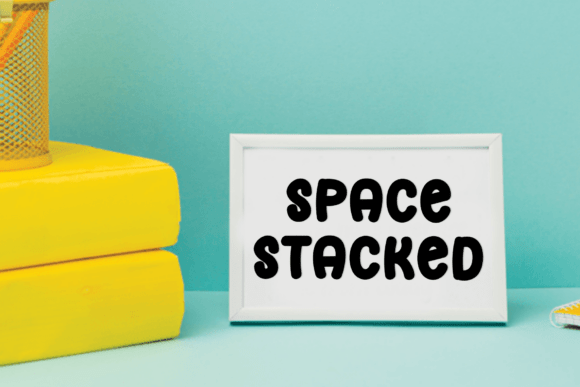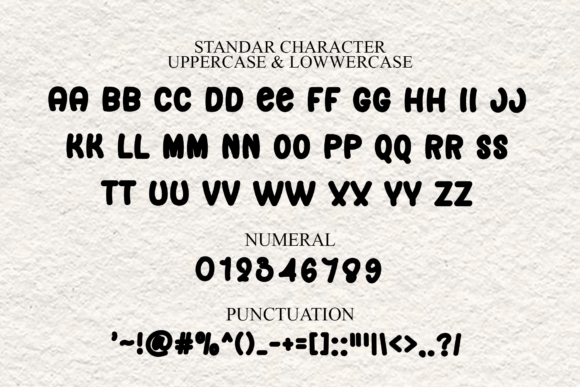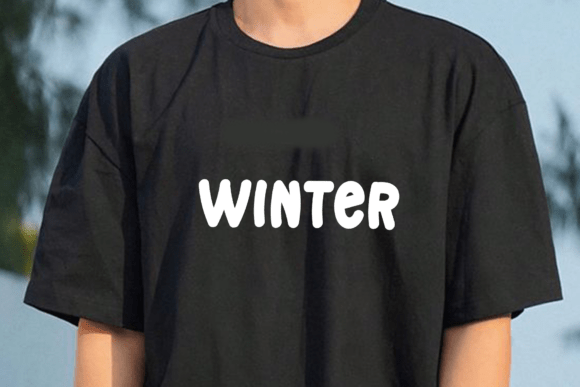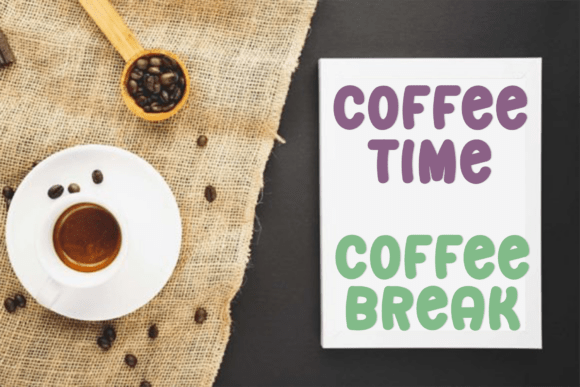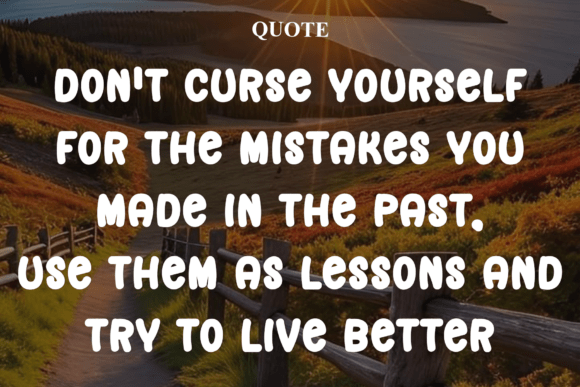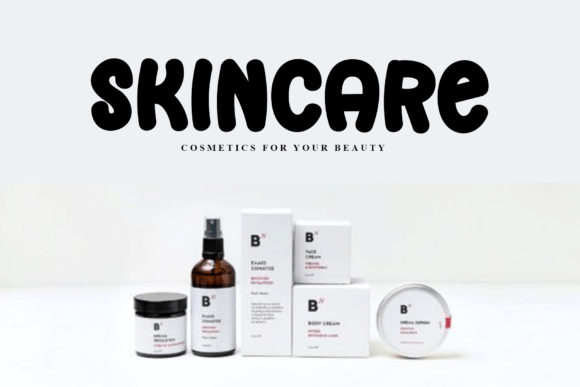
Introducing Classic Lemonade Font: The Ultimate Display Font for Refreshing Designs
Are you looking for a font that can add a refreshing and playful touch to your designs? Look no further than the Classic Lemonade Font. This bold, high-impact display font is designed with a modern spirit that is sure to make your designs stand out. With its massive, rounded letterforms and ultra-bold visual weight, Classic Lemonade is the perfect choice for designers and crafters who want to create eye-catching and impactful designs.
What Makes Classic Lemonade Font So Special?
Classic Lemonade Font features massive, rounded letterforms with an ultra-bold visual weight and a soft “puffy” silhouette. This unique combination of characteristics makes it a standout choice for a variety of design applications, including beverage packaging, seasonal marketing campaigns, cheerful event signage, and impactful social media headers. The font’s bold and playful design is sure to grab attention and leave a lasting impression on your audience.
Key Features of Classic Lemonade Font
- Bold and Playful Design: Classic Lemonade Font features a bold and playful design that is sure to add a refreshing touch to your designs.
- Massive, Rounded Letterforms: The font’s massive, rounded letterforms make it perfect for display purposes, such as headlines and titles.
- Ultra-Bold Visual Weight: The font’s ultra-bold visual weight ensures that your designs will stand out, even at a distance.
- Soft “Puffy” Silhouette: The font’s soft “puffy” silhouette adds a touch of playfulness and whimsy to your designs.
Classic Lemonade Font is a versatile font that can be used for a variety of design applications, including:
- Beverage Packaging: The font’s bold and playful design makes it perfect for beverage packaging, such as labels and bottles.
- Seasonal Marketing Campaigns: The font’s refreshing and playful design makes it perfect for seasonal marketing campaigns, such as summer promotions and holiday advertising.
- Cheerful Event Signage: The font’s bold and playful design makes it perfect for cheerful event signage, such as signs for festivals and fairs.
- Impactful Social Media Headers: The font’s bold and playful design makes it perfect for impactful social media headers, such as Facebook and Twitter headers.
Why Choose Classic Lemonade Font?
There are many reasons why you should choose Classic Lemonade Font for your design projects. Here are just a few:
- Unique and Eye-Catching Design: The font’s unique and eye-catching design is sure to grab attention and leave a lasting impression on your audience.
- Versatile and Flexible: The font’s versatile and flexible design makes it perfect for a variety of design applications.
- Easy to Read: The font’s bold and clear design makes it easy to read, even at a distance.
In conclusion, Classic Lemonade Font is a bold, high-impact display font that is perfect for designers and crafters who want to create refreshing and playful designs. With its massive, rounded letterforms, ultra-bold visual weight, and soft “puffy” silhouette, this font is sure to make your designs stand out. Whether you’re creating beverage packaging, seasonal marketing campaigns, cheerful event signage, or impactful social media headers, Classic Lemonade Font is the perfect choice.